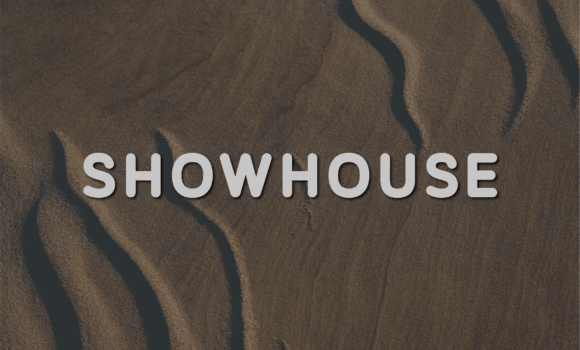
Showhouse Font – Free Download Introduction to Showhouse Font Showhouse is a versatile, modern, and classy sans serif font perfect for logos, weddings, invitations, quotes, advertisements, print, magazines, and more. 📸 Preview Gallery 3 images 📌 Product Name Showhouse Font